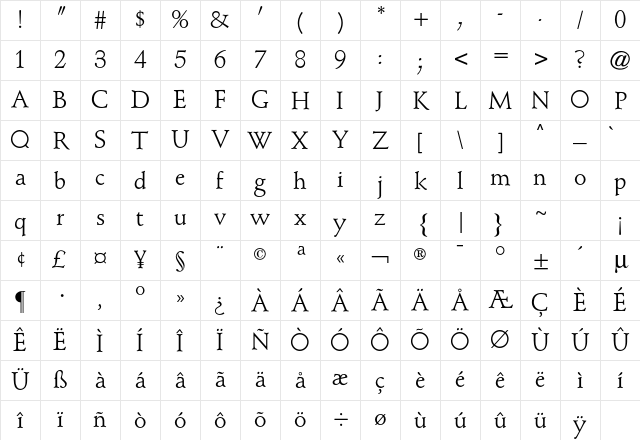
Schneidler CG Regular
Design Context for Schneidler CG
Schneidler CG is a composed and adaptable typeface that performs quietly and consistently across a wide range of design contexts.
Pro Tip: Use Schneidler CG in both headline and body roles to test its range before committing to a single application.